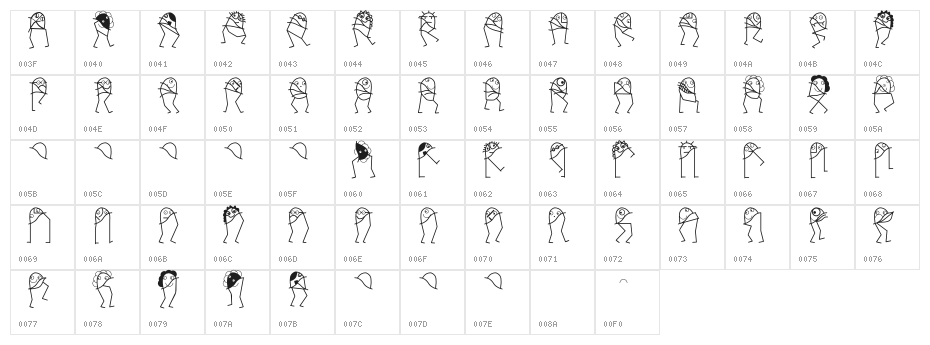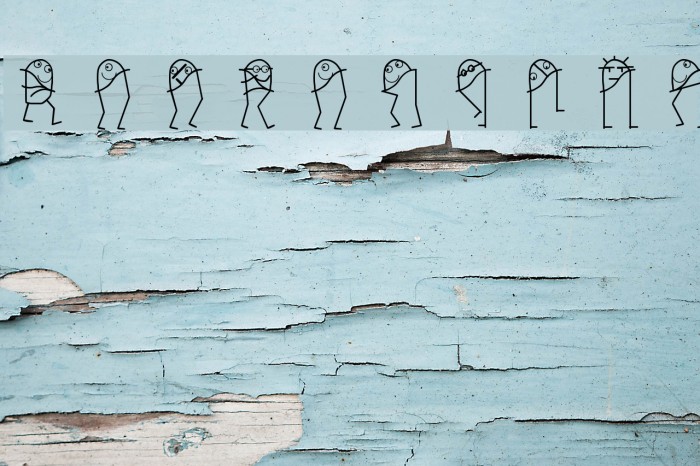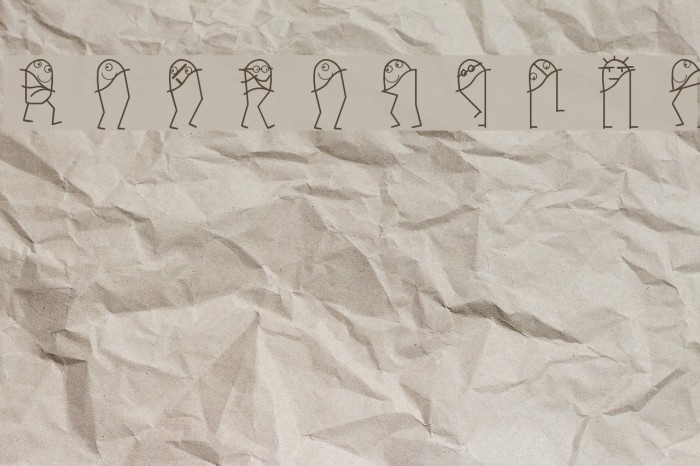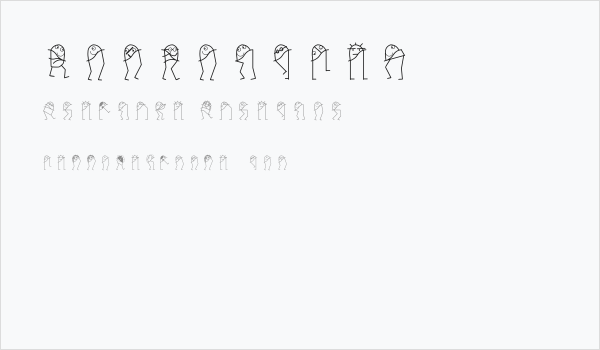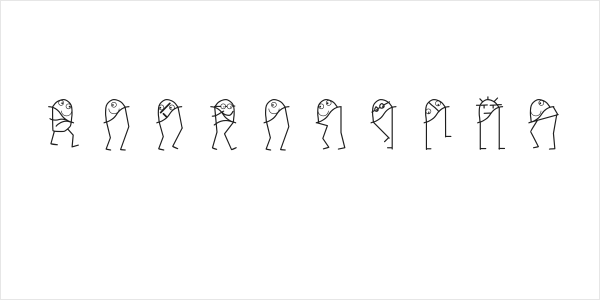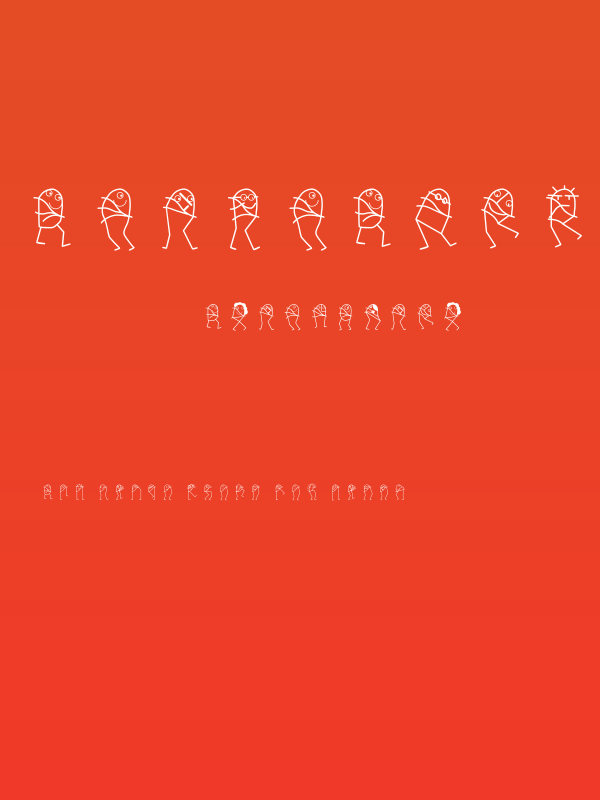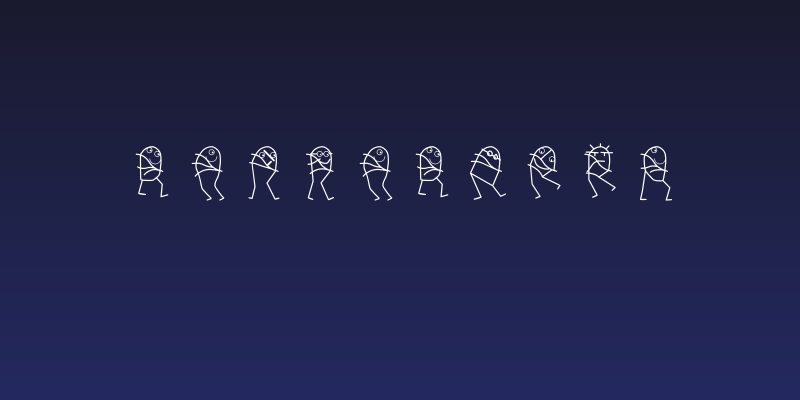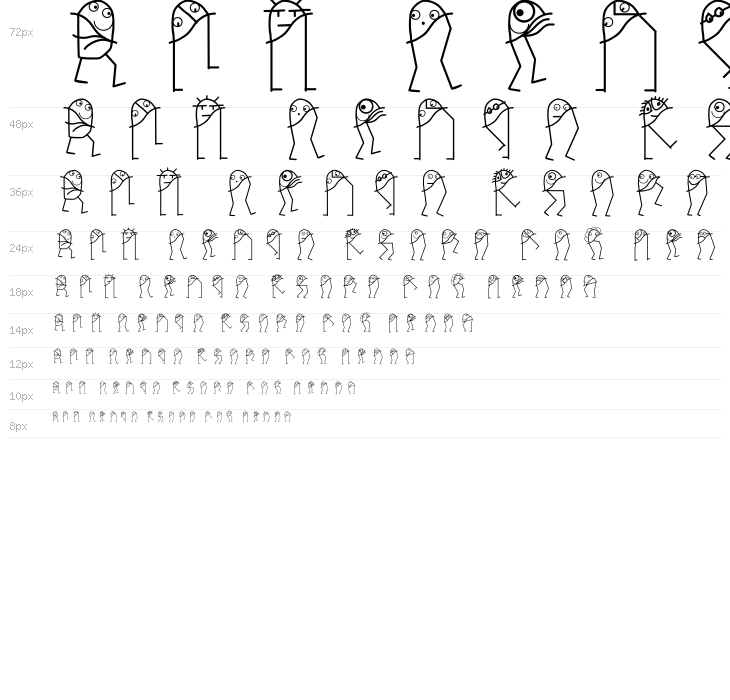
TopNotches Font
TopNotches Description
A playful, hand-drawn decorative font where each character is represented by a unique stick figure with expressive poses and head details, giving a whimsical and animated appearance.
| Overall Style | Playful, Whimsical, Hand-drawn |
| Use Case | Headlines, Logos, Posters, Children's content |
| Proposed Projects | Children's books, playful posters, comic titles, greeting cards, educational materials. |